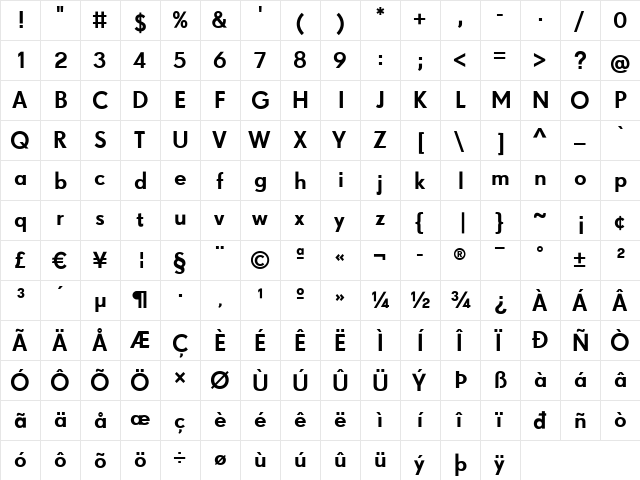
SuperGroteskA Regular Font Preview
SuperGroteskA Regular
SuperGroteskA Regular Font Details
Design Context for SuperGroteskA Typeface
SuperGroteskA takes a clean, functional approach — its unadorned letterforms prioritise legibility and work reliably across screen and print environments.
Font Pairing: Works well alongside a characterful serif or display font that can carry the expressive load while SuperGroteskA handles the functional copy.
Pro Tip: Use SuperGroteskA for UI labels, navigation, and short-form body copy where clean legibility is the priority.